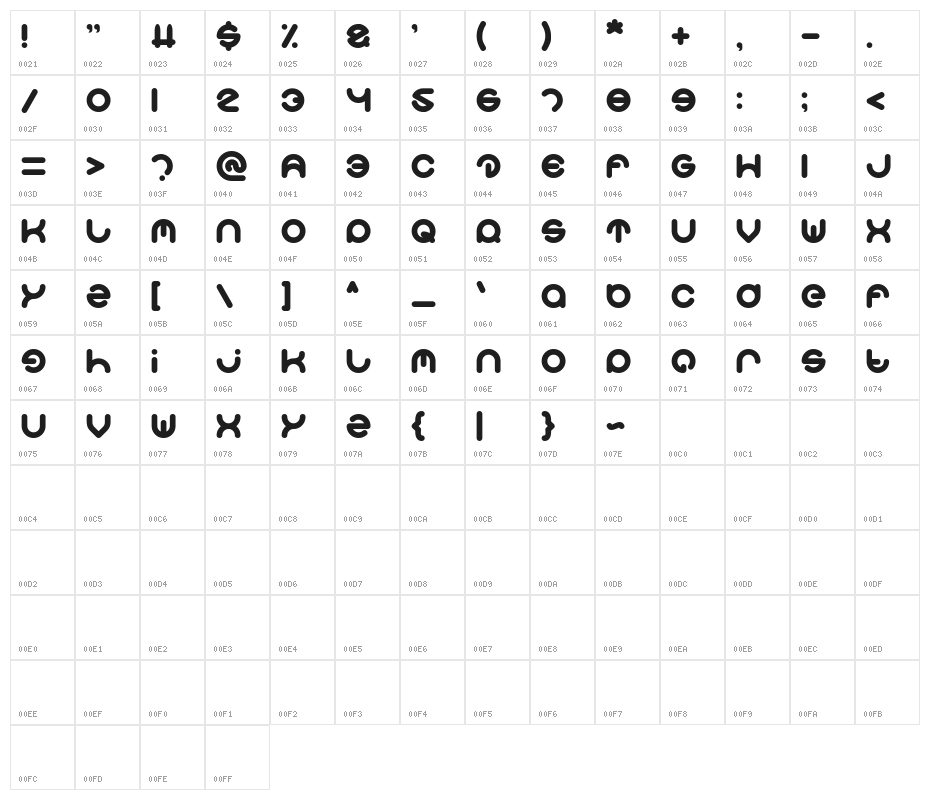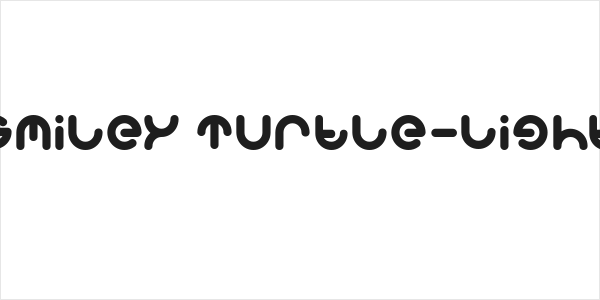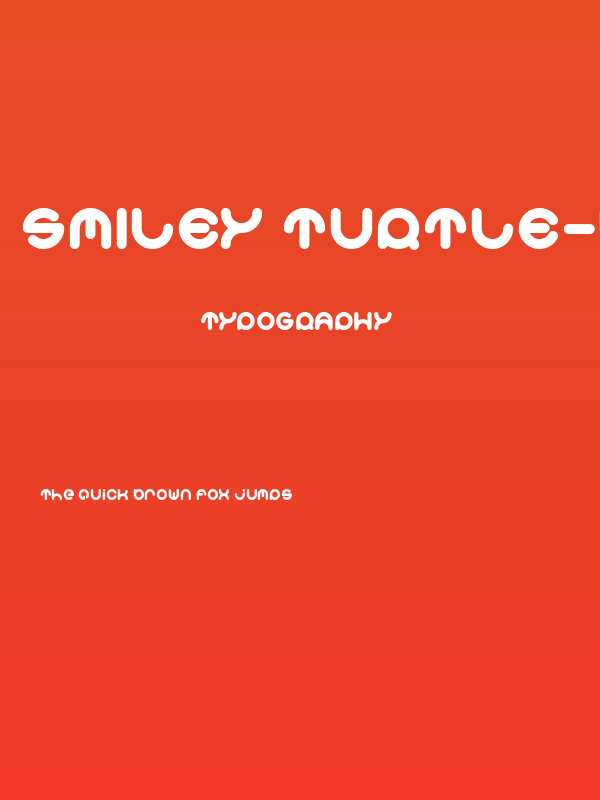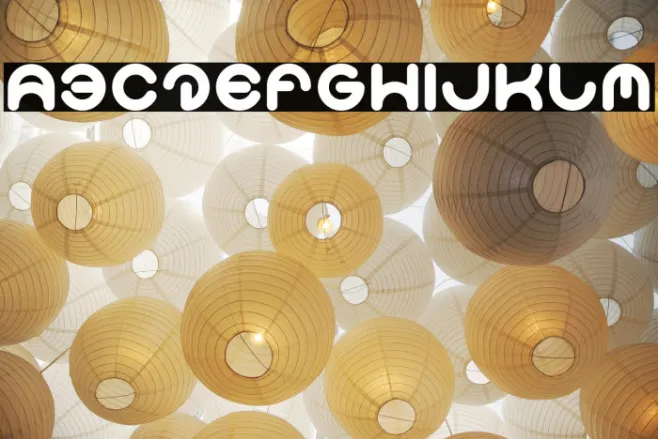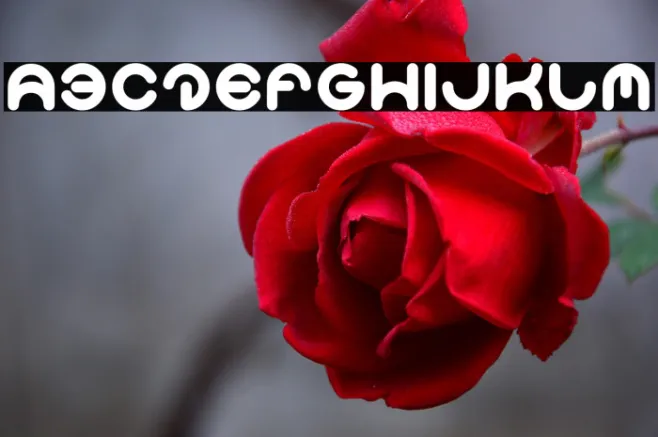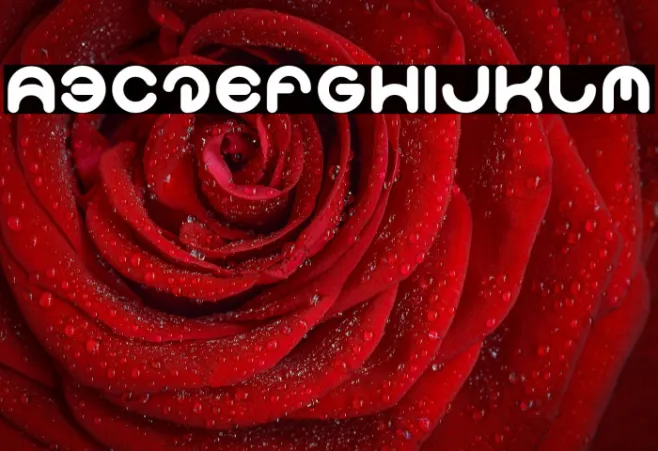
Smiley Turtle-Light Font
Smiley Turtle-Light Description
This font features a playful and rounded design, characterized by its bold, circular shapes and smooth curves. The letters are evenly spaced, creating a harmonious and balanced appearance. The uppercase and lowercase characters maintain a consistent style, with the lowercase letters mirroring the playful nature of the uppercase. Numbers and special characters follow the same design principles, ensuring uniformity across all glyphs. The font's unique style makes it stand out, offering a modern and friendly aesthetic that is both eye-catching and approachable.
| Proposed Projects | Ideal for children's books, playful branding, posters, and creative digital content. |